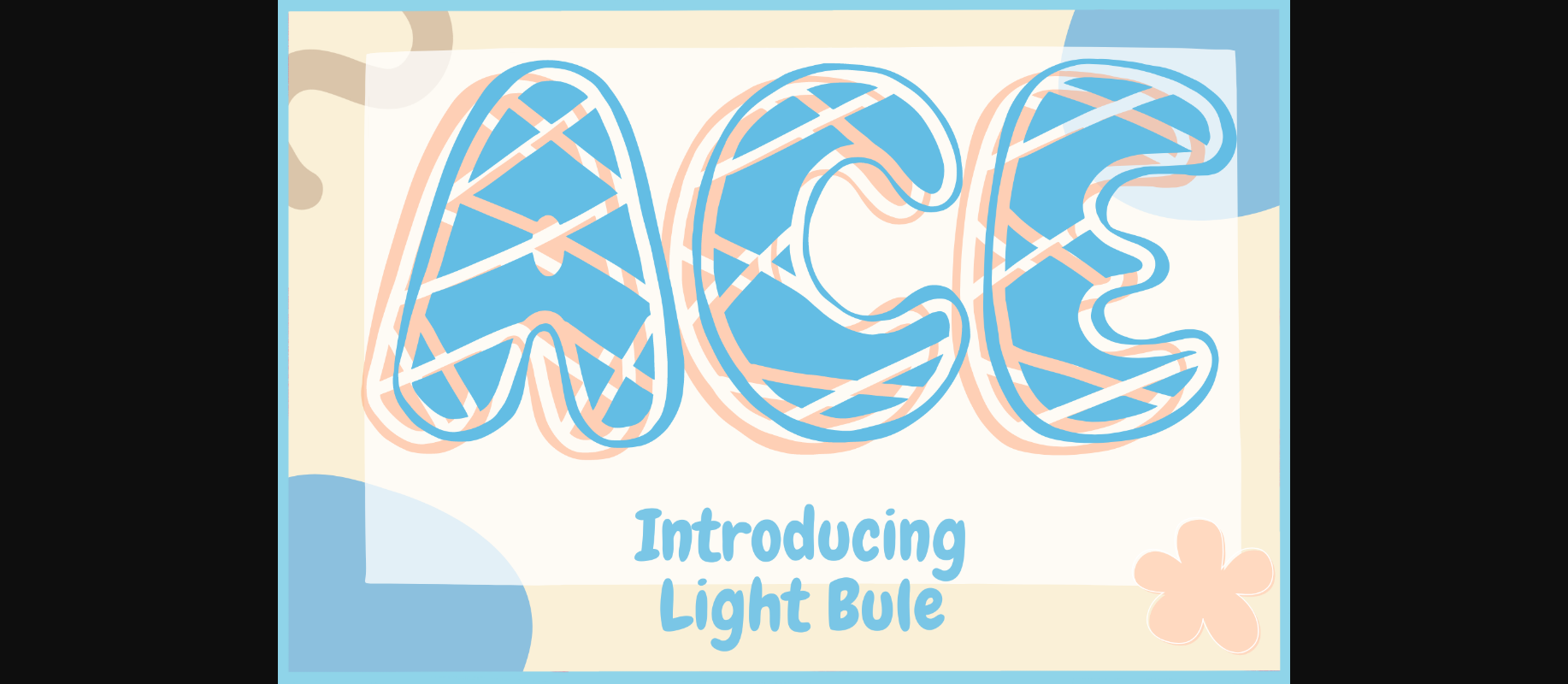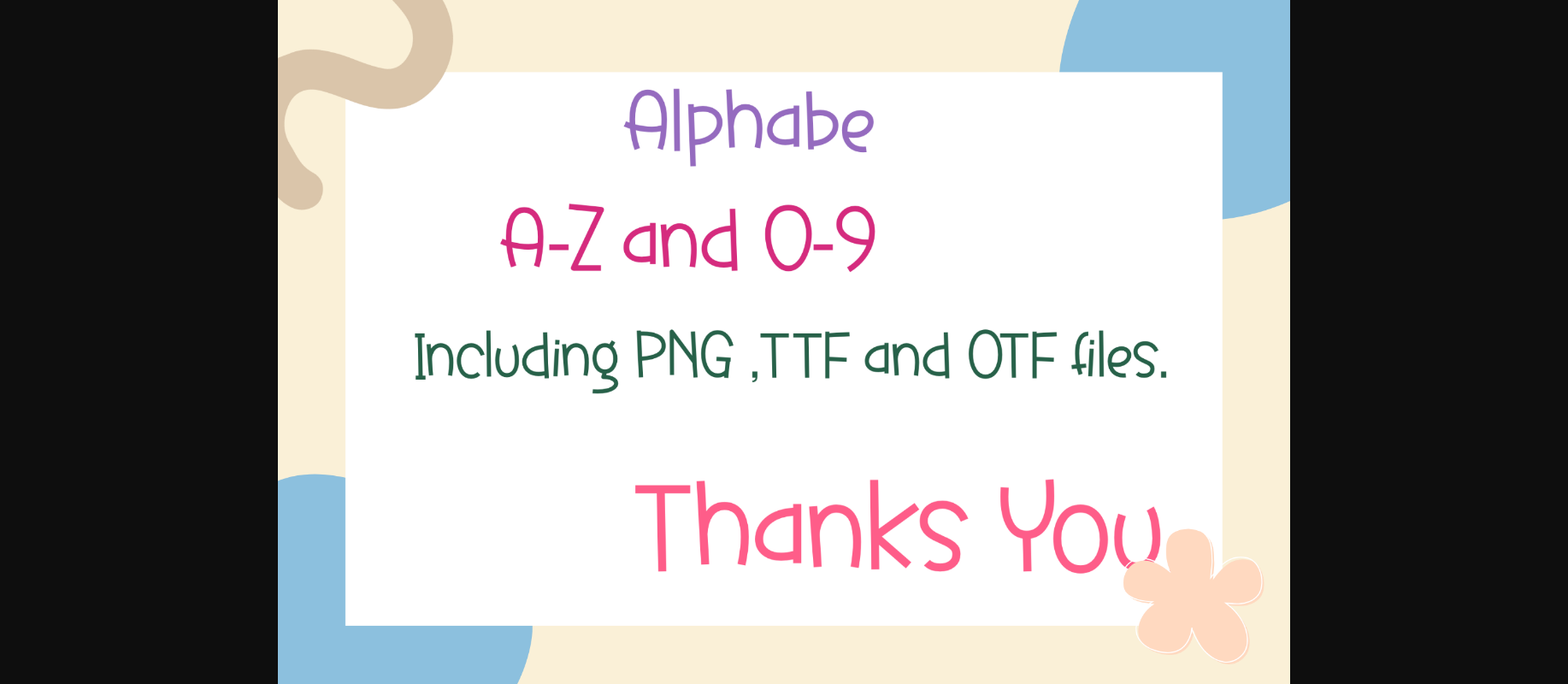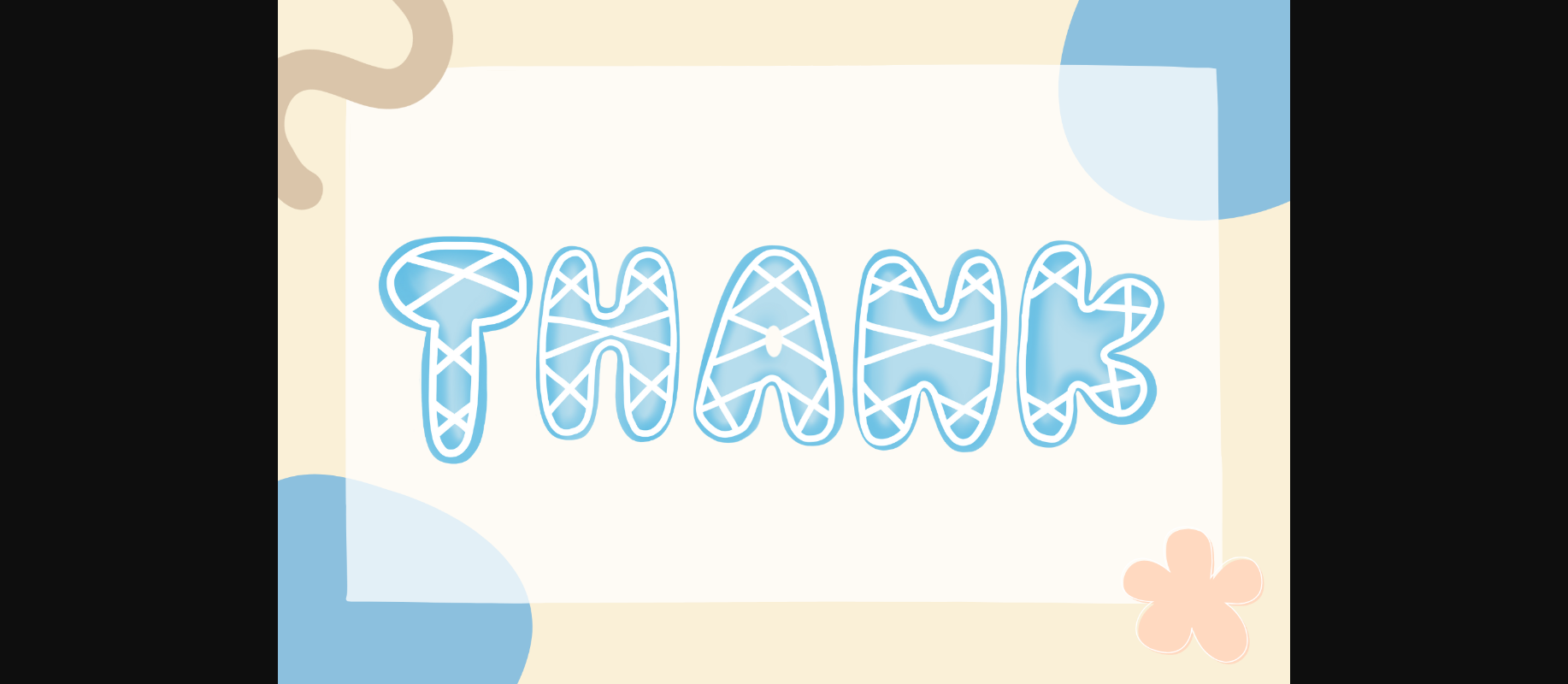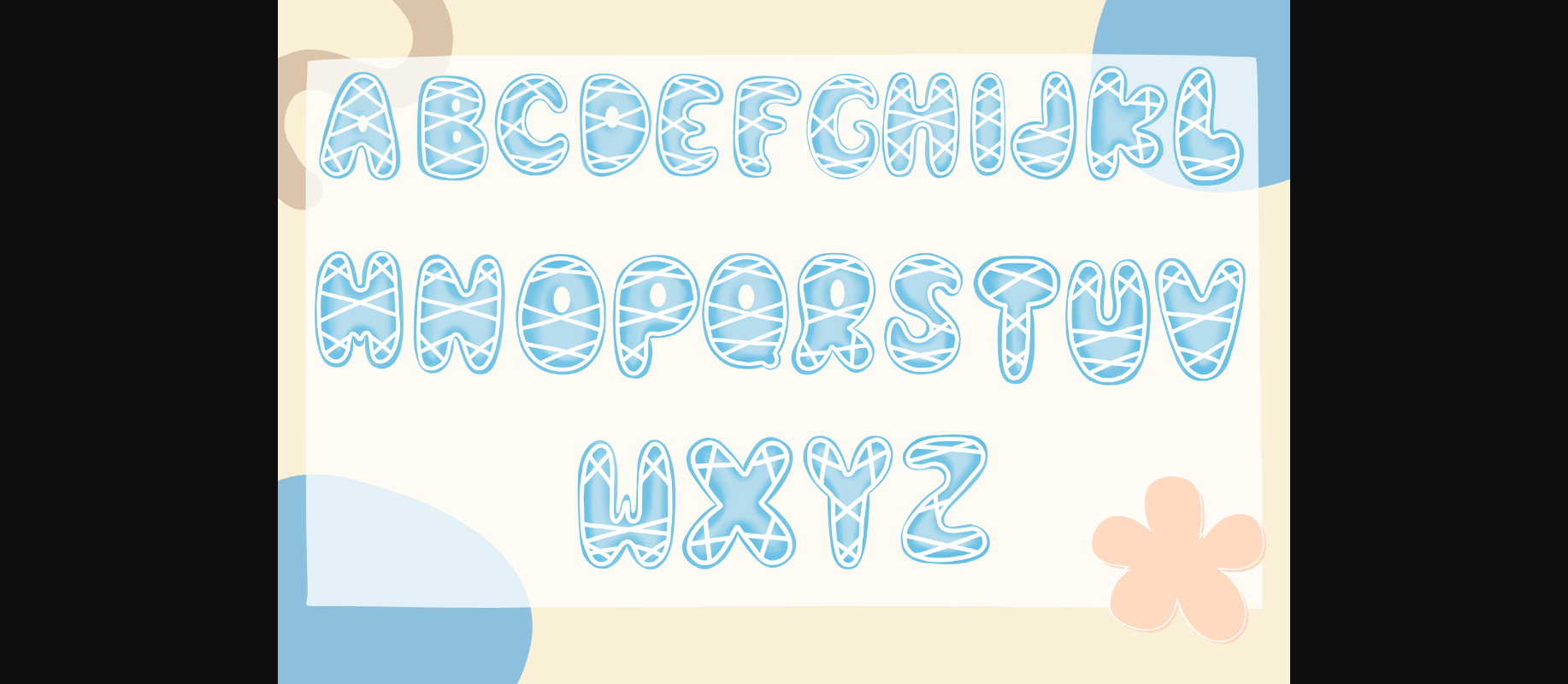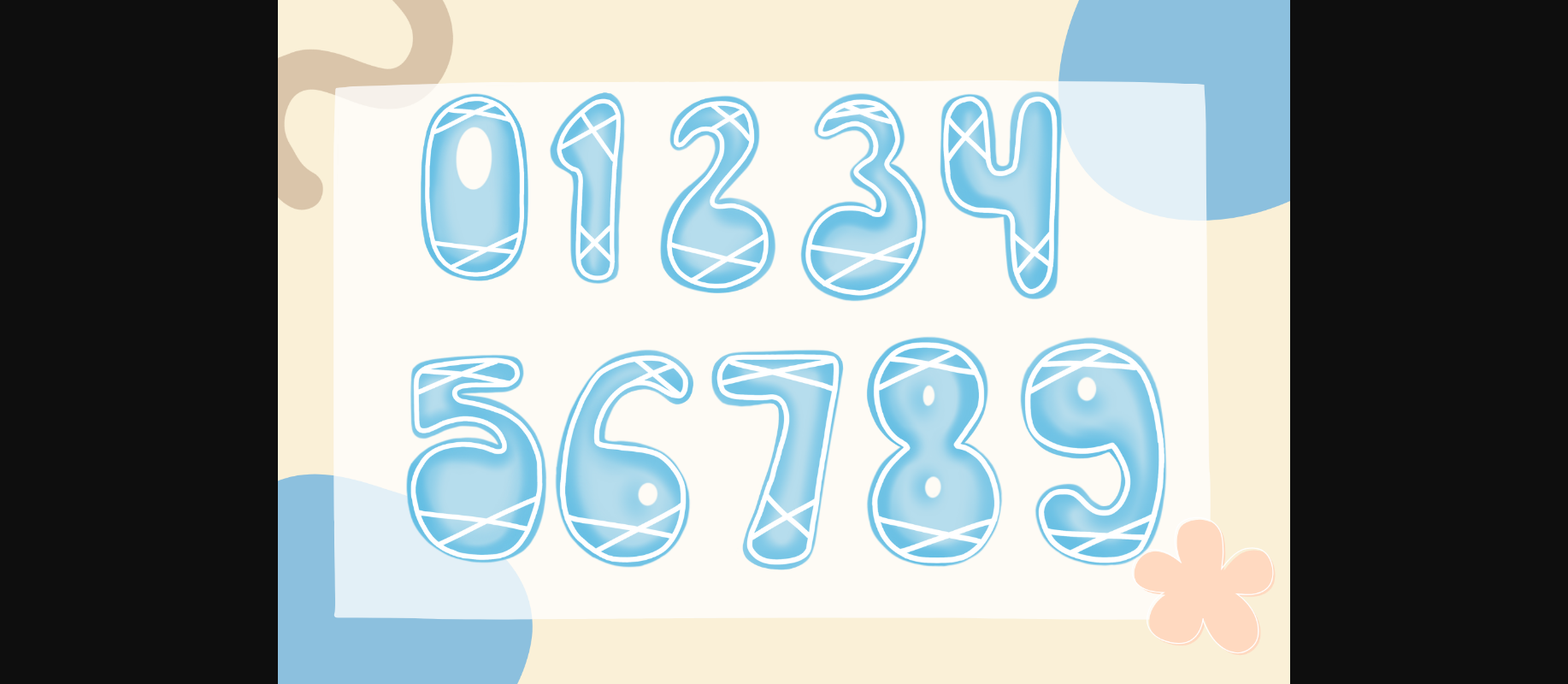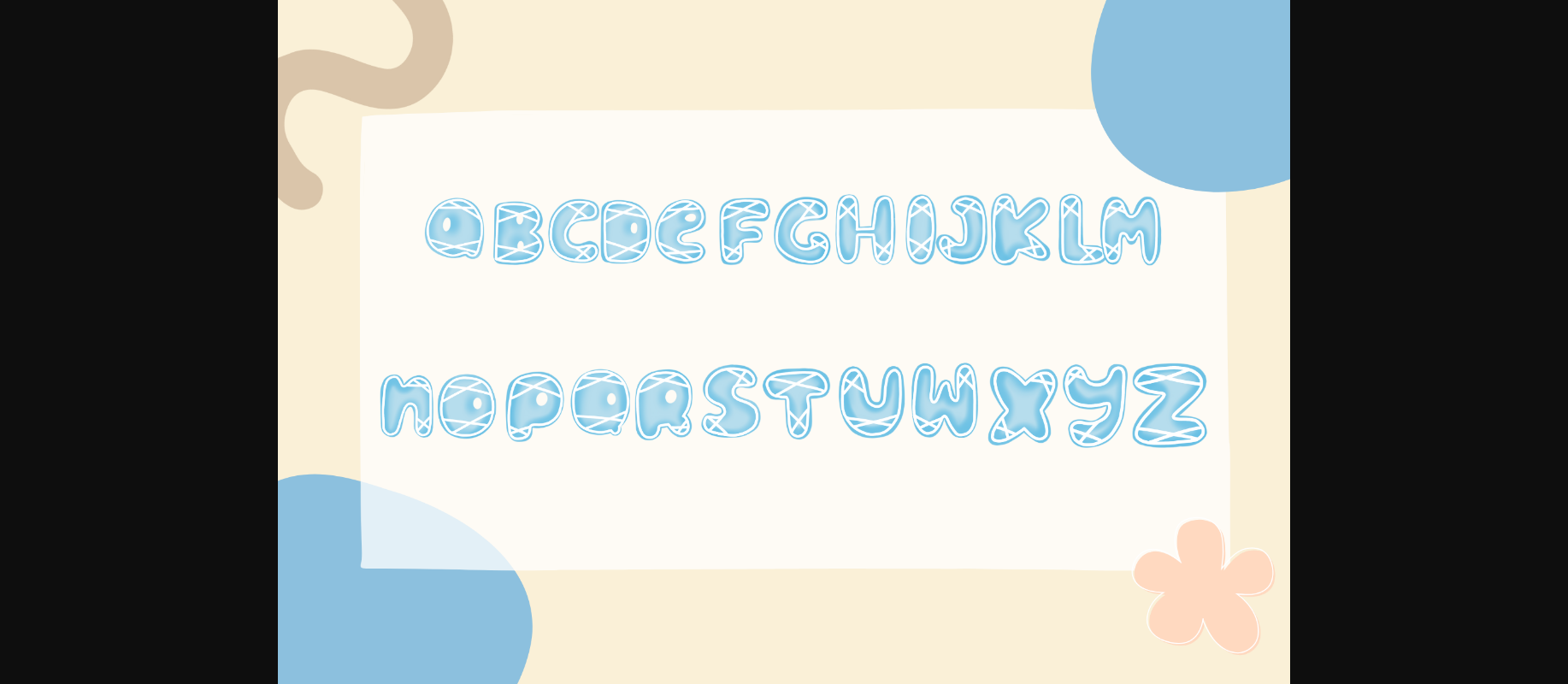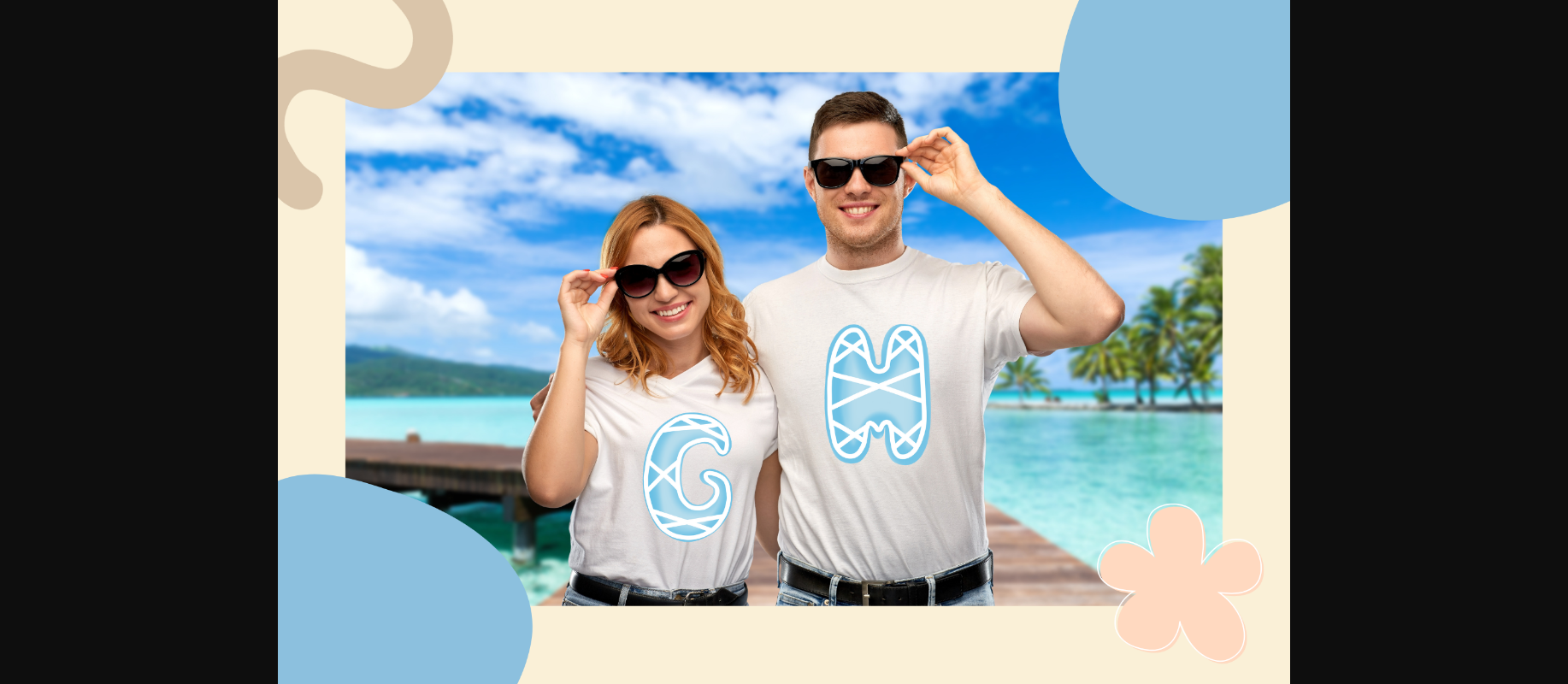
About Light Blue Font
Light Blue is a super cute font. Whether you are using it for cartoon-related designs, children’s games, quotes, titles, brand names, book covers, posters, or just any creation that requires a touch of joy, this font is a great choice.